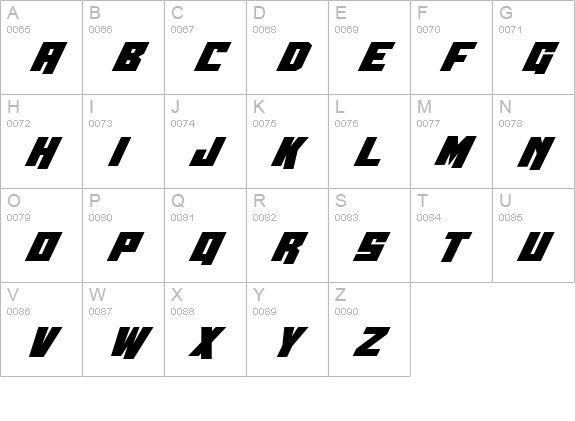
Whiskey Bravo Victor Bold is a strong, high-contrast variant in the Whiskey typeface family \xE2\x80\x94 well suited to headlines, attention-grabbing titles, and strong calls-to-action.
Introducing Whiskey Bravo Victor Bold font, a captivating and versatile typeface that effortlessly commands attention. With its bold and commanding letterforms, this font is the perfect choice for those looking to make a bold statement with their designs. Whiskey Bravo Victor Bold font exudes a sense of strength and confidence, as each letter is meticulously crafted to convey a powerful presence. Its clean lines and sharp edges create a modern and sophisticated aesthetic, making it suitable for a wide range of design projects. What sets Whiskey Bravo Victor Bold font apart is its ability to captivate and engage the viewer. Whether used for headlines, logos, posters, or any other design element, this font will effortlessly draw the eye and leave a lasting impression. But what makes Whiskey Bravo Victor Bold font even more appealing is the fact that it is freely available to download at FontsMarket.com. This means that you can enhance your design projects with this extraordinary font without any cost. So, whether you're a professional designer looking to add a touch of boldness and impact to your work, or an aspiring creator wanting to make a statement, Whiskey Bravo Victor Bold font is the perfect choice. Download it for free at FontsMarket.com and unlock the power of bold typography in your designs.